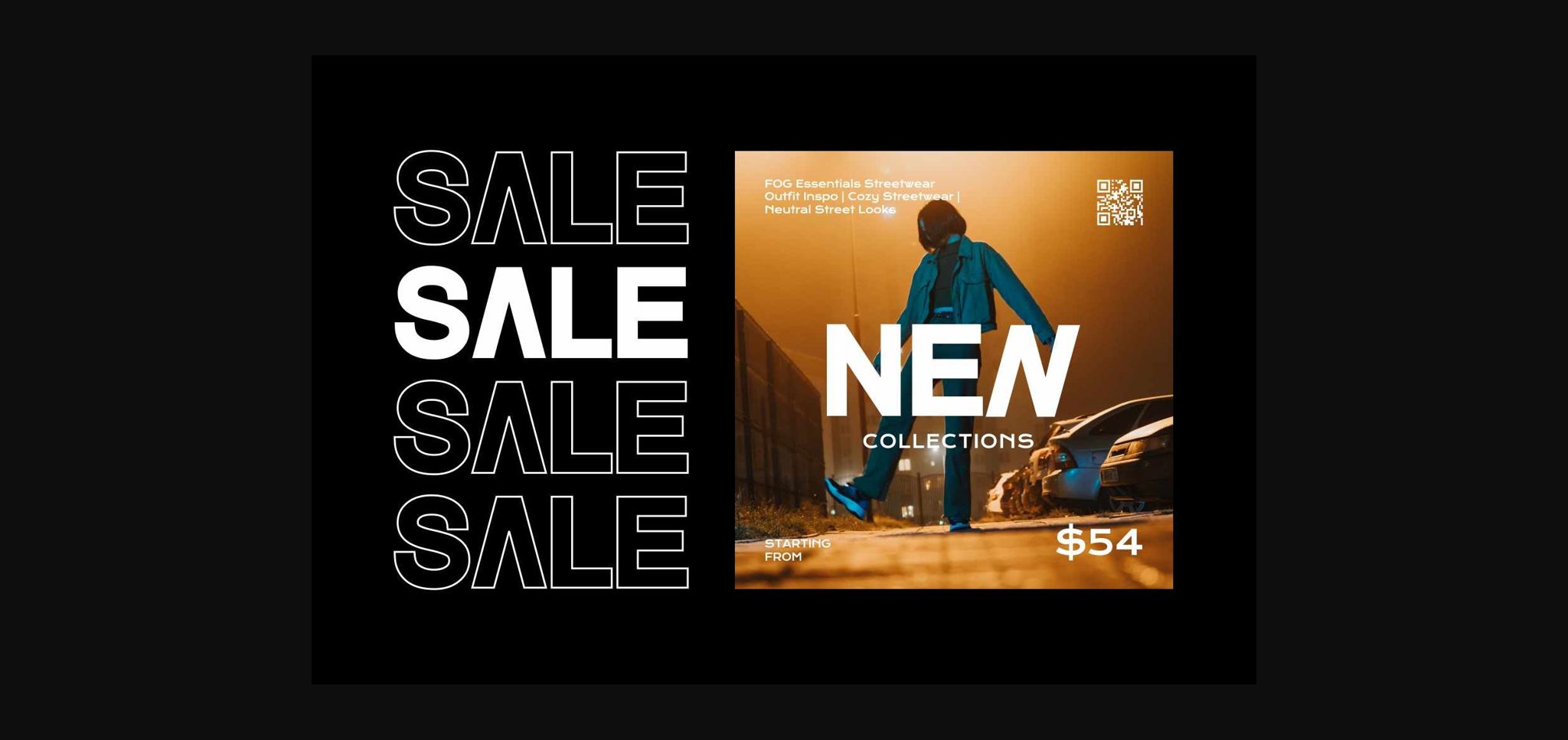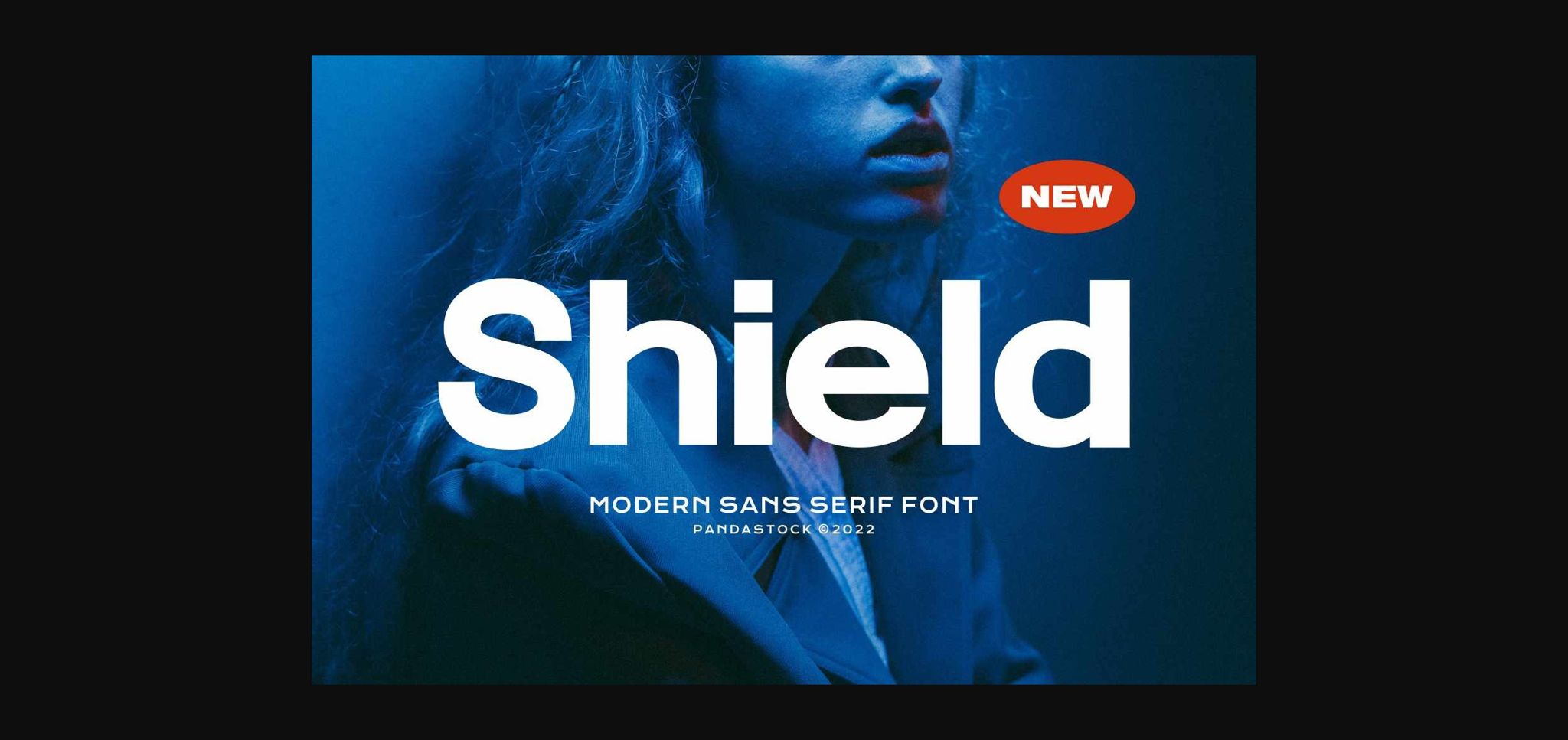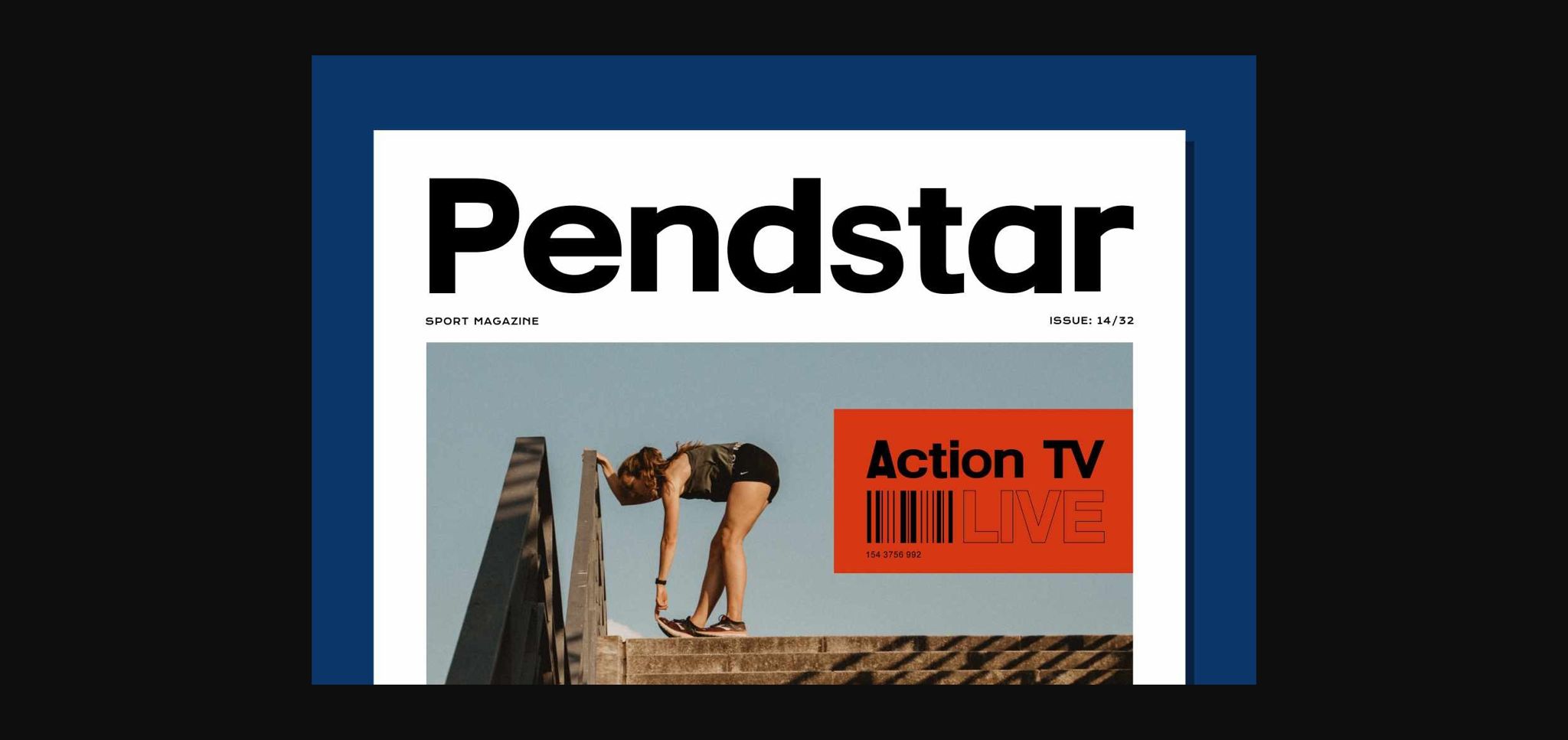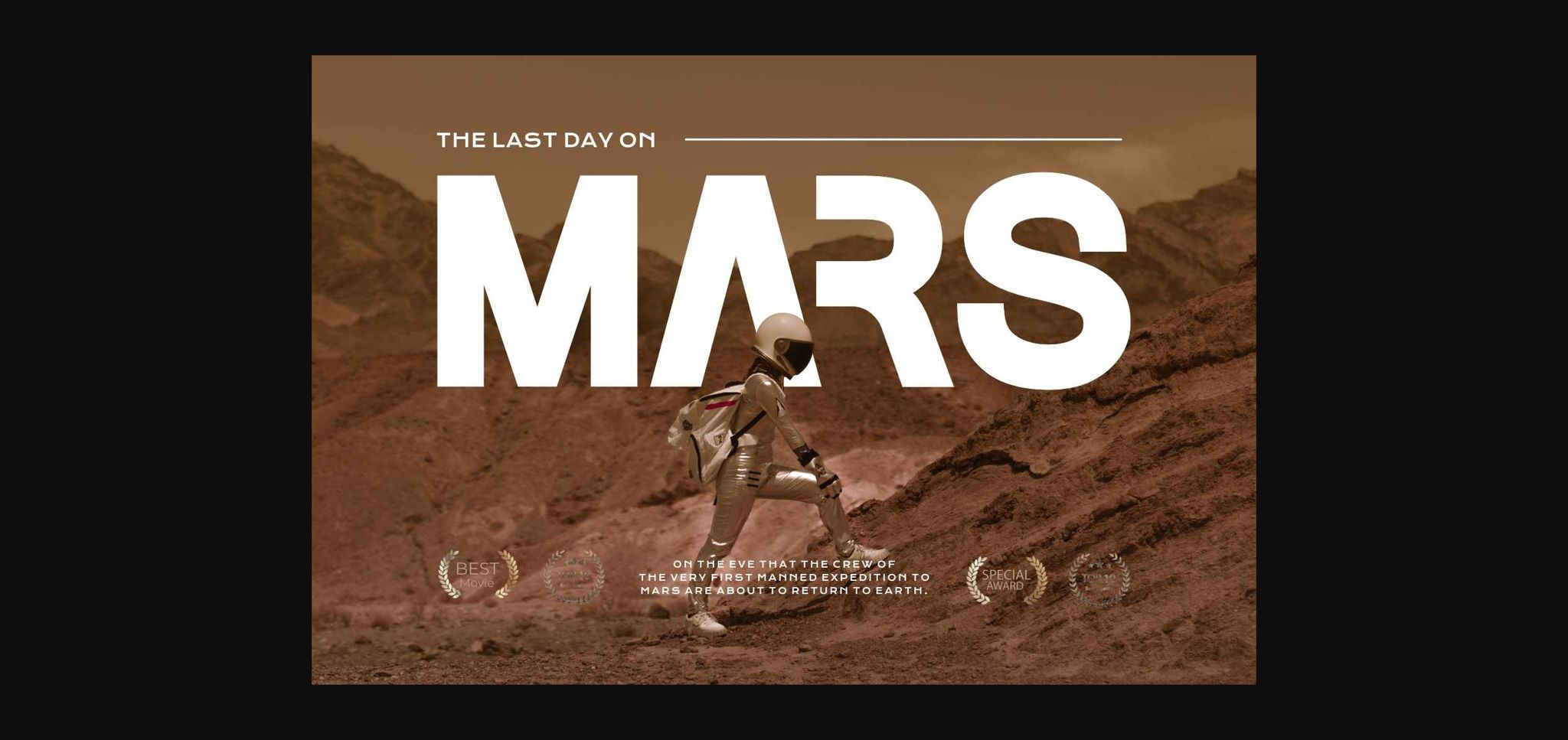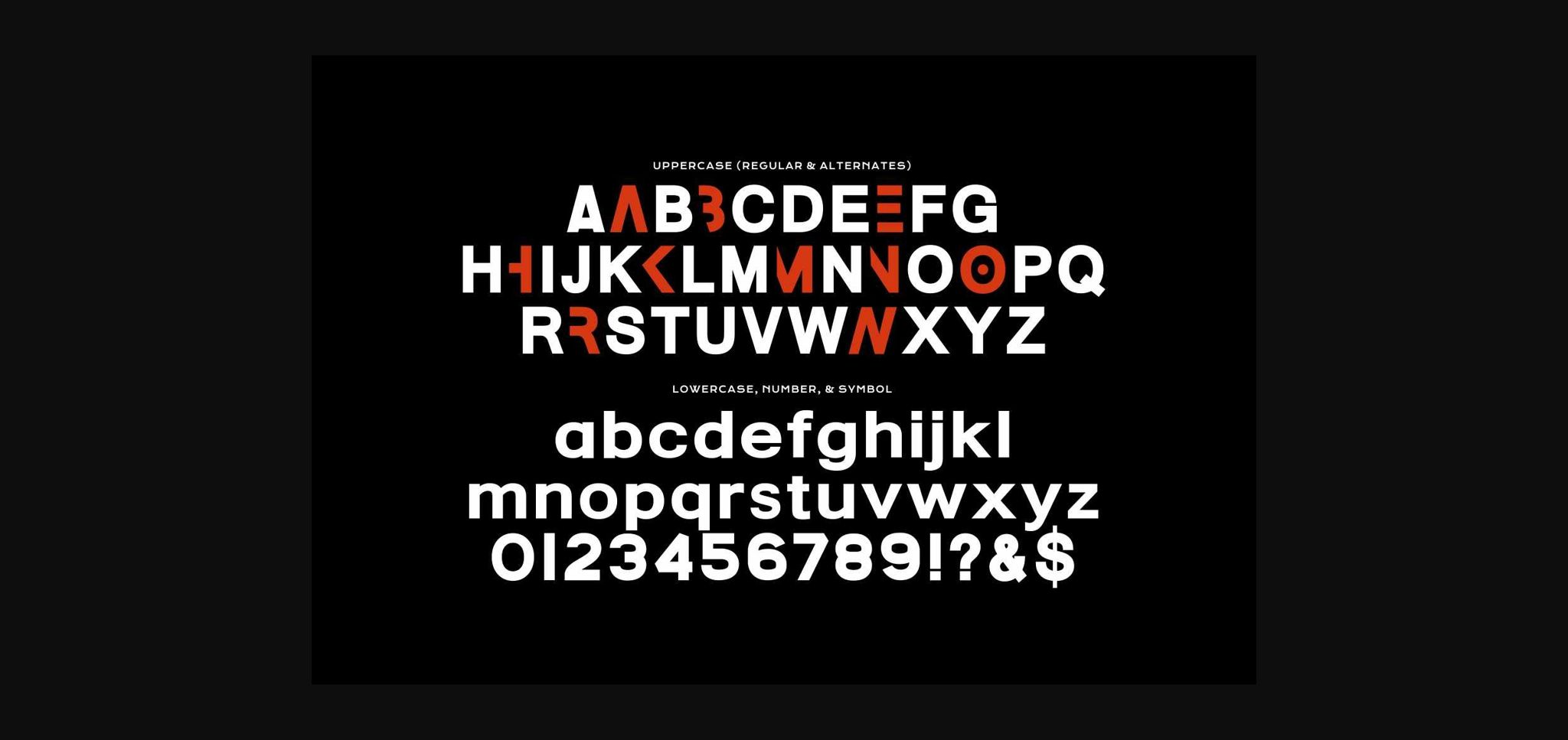
HomeSans Serif FontsShield Font Sans Serif Fonts Shield Font FacebookXPinterestWhatsApp 1 of 7 ... Shield Font Poster 2... Shield Font Poster 3... Shield Font Poster 4... Shield Font Poster 5... Shield Font Poster 6... Shield Font Poster 7... About Shield Font Shield is a cool and stylish sans serif font. Incredibly versatile and elegant, this font is suitable for a wide spectrum of applications. DOWNLOAD NOW People also explored Starla Belovia Font Better Font Shellana Font Spider Web Font Future Career Font Blacker Spirit Font Hellena Font FT Military Dingbats Simple Partner Font 461 0 TagsShieldShield Font Previous articleThinny FontNext articleNero Font LEAVE A REPLY Cancel reply Comment: Please enter your comment! Name:* Please enter your name here Email:* You have entered an incorrect email address! Please enter your email address here Website: Save my name, email, and website in this browser for the next time I comment. Personal Use Free Token No 721 Personal Use Free Read more about this font Vincent Familiante Personal Use Free Read more about this font Burnstown Dam Personal Use Free Read more about this font Fontmageddon Personal Use Free Read more about this font BLOG Free Fonts Risk: Why Free Fonts Can Be Dangerous for Designers Free Fonts Risk: Why Free Fonts Can Be Dangerous for Designers Using free fonts is a common practice in web and graphic design. However, the... The 10 Best Handwriting Fonts to Add Personality to Your Designs Exploring Font Trends 5 Fonts That Will Dominate Design Trends in 2026